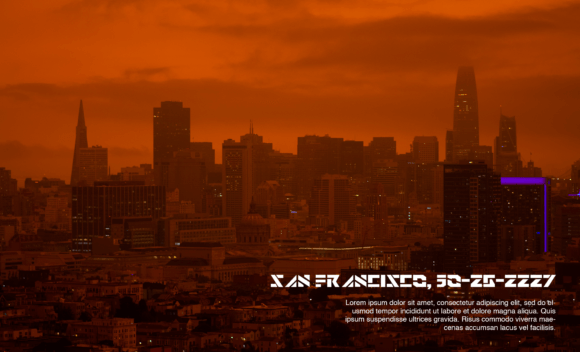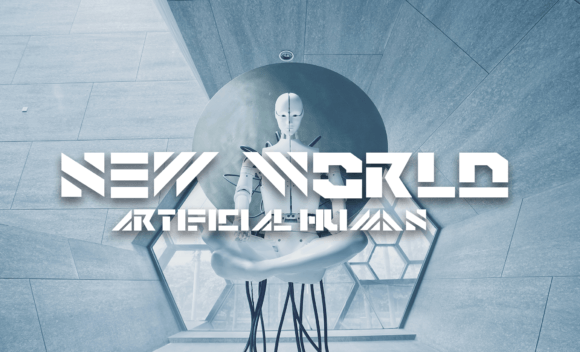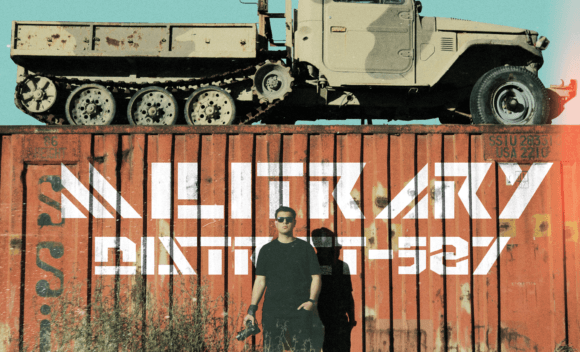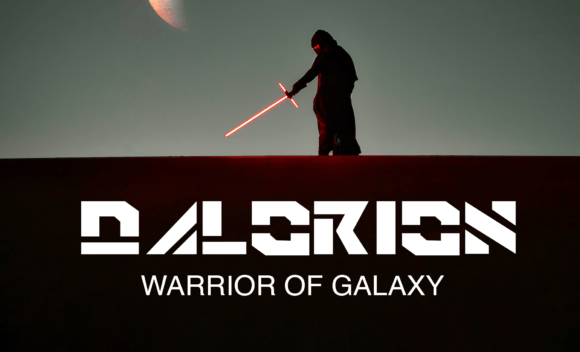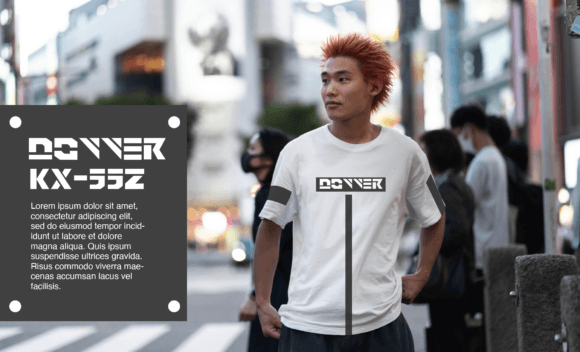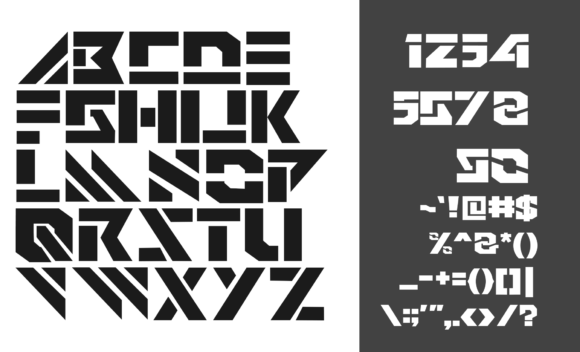
Introducing Aegist: The Futuristic Font for Dystopian Designs
In the world of design, fonts play a crucial role in conveying the message and aesthetic of a project. Whether you’re working on a game, presentation, art, or craft, the right font can elevate your design and leave a lasting impression on your audience. If you’re looking for a font that brings a futuristic touch to your designs, look no further than Aegist. This display font is specifically designed to capture the essence of dystopia and cyberpunk, making it the perfect choice for anything related to robots, the matrix, and Y2K.
The Aesthetic of Aegist
Aegist boasts a sleek and modern design that is sure to turn heads. Its futuristic aesthetic is characterized by clean lines, sharp edges, and a bold, avant-garde style. The font’s design is inspired by the world of science fiction, where technology and innovation reign supreme. With Aegist, you can add a touch of sophistication to your designs and give them a cutting-edge feel that’s sure to impress.
Perfect for Highlighting Important Information
One of the key features of Aegist is its ability to highlight important information and create attention-grabbing headlines. The font’s bold and modern design makes it perfect for titles, headings, and other applications where you want to make a statement. Whether you’re designing a poster, flyer, or website, Aegist is sure to grab the attention of your audience and convey your message with clarity and impact.
Ideal for Dystopian and Cyberpunk Designs
Aegist is specifically designed for designers who work with dystopian and cyberpunk themes. The font’s futuristic aesthetic is perfectly suited for designs that explore the intersection of technology and humanity. Whether you’re working on a project that involves robots, artificial intelligence, or virtual reality, Aegist is the perfect choice. The font’s design is inspired by the world of science fiction, where technology and innovation are the norm.
Use Aegist for Your Game or Presentation
If you’re a game developer or presenter looking for a font that will give your project a cutting-edge feel, Aegist is the perfect choice. The font’s modern design and futuristic aesthetic make it ideal for games, presentations, and other applications where you want to convey a sense of innovation and forward-thinking. With Aegist, you can add a touch of sophistication to your project and give it a professional, high-tech look.
Crafting with Aegist
Aegist is not just limited to digital designs; it’s also perfect for crafters who want to add a touch of modernity to their projects. Whether you’re working on a scrapbooking project, card making, or other craft, Aegist is a great choice. The font’s bold and modern design makes it perfect for titles, headings, and other applications where you want to make a statement.
Why Choose Aegist?
So, why choose Aegist over other fonts? Here are just a few reasons why Aegist stands out:
- Unique Aesthetic: Aegist boasts a unique and futuristic aesthetic that’s sure to turn heads.
- Attention-Grabbing: The font’s bold and modern design makes it perfect for highlighting important information and creating attention-grabbing headlines.
- Versatile: Aegist is versatile and can be used for a wide range of applications, from digital designs to crafting projects.
- Futuristic Feel: The font’s design is inspired by the world of science fiction, giving it a futuristic feel that’s perfect for dystopian and cyberpunk designs.
| Author | Mofr24 Studio |
In conclusion, Aegist is a font that’s sure to bring a futuristic touch to your designs. Its sleek and modern design makes it perfect for highlighting important information, creating attention-grabbing headlines, and crafting titles that leave a lasting impression. Whether you’re a designer, game developer, presenter, or crafter, Aegist is a great choice for anyone looking to add a touch of sophistication and innovation to their projects. So, why wait? Try Aegist today and experience the future of font design.